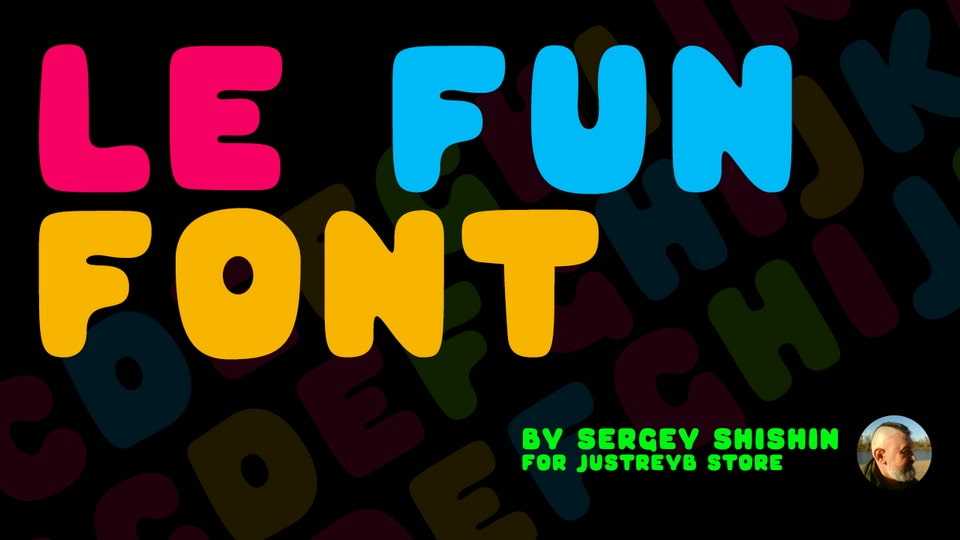
Download LeFun font, a playful and fun cartoon typeface that brings a burst of happiness and laughter to your designs. This delightful typeface is like a trip to a world of whimsy and imagination, where each character is a playful expression of joy.
Designer: Sergey Shishin